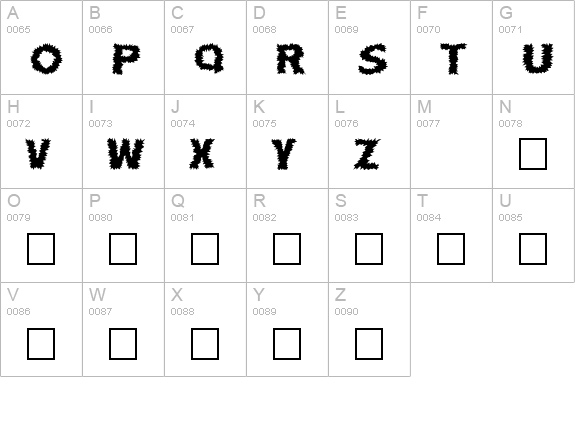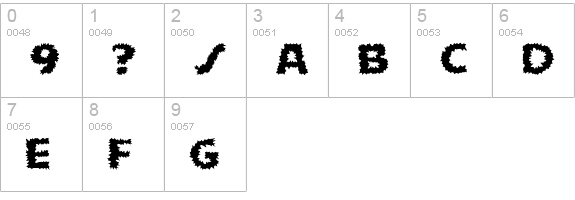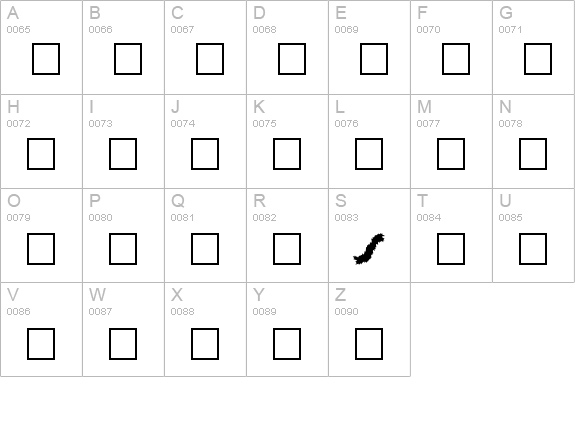
ShockFont Font Details
ShockFont is a mesmerizing and captivating font that is sure to leave a lasting impression on any design project. With its unique and edgy style, ShockFont is perfect for creating attention-grabbing headlines, posters, logos, and more. This font exudes a sense of energy and excitement, making it an ideal choice for projects that require a bold and daring aesthetic. Not only does ShockFont offer a visually striking design, but it also has the added advantage of being free to download. That's right, ShockFont is freely available to all designers and creatives, making it an accessible and budget-friendly choice for any project. Whether you're a professional designer or a hobbyist, you can now elevate your designs with this incredible font without breaking the bank. To get your hands on ShockFont, simply head over to FontsMarket.com and download it for free. FontsMarket.com is a reliable and reputable platform that offers a vast collection of high-quality fonts, and ShockFont is just one of the many gems you'll find there. With just a few clicks, you can start using ShockFont in your designs and experience the impact it will have on your audience. So why wait? Embrace the electrifying power of ShockFont and let your designs stand out from the crowd. Download it for free at FontsMarket.com and unleash your creativity today!